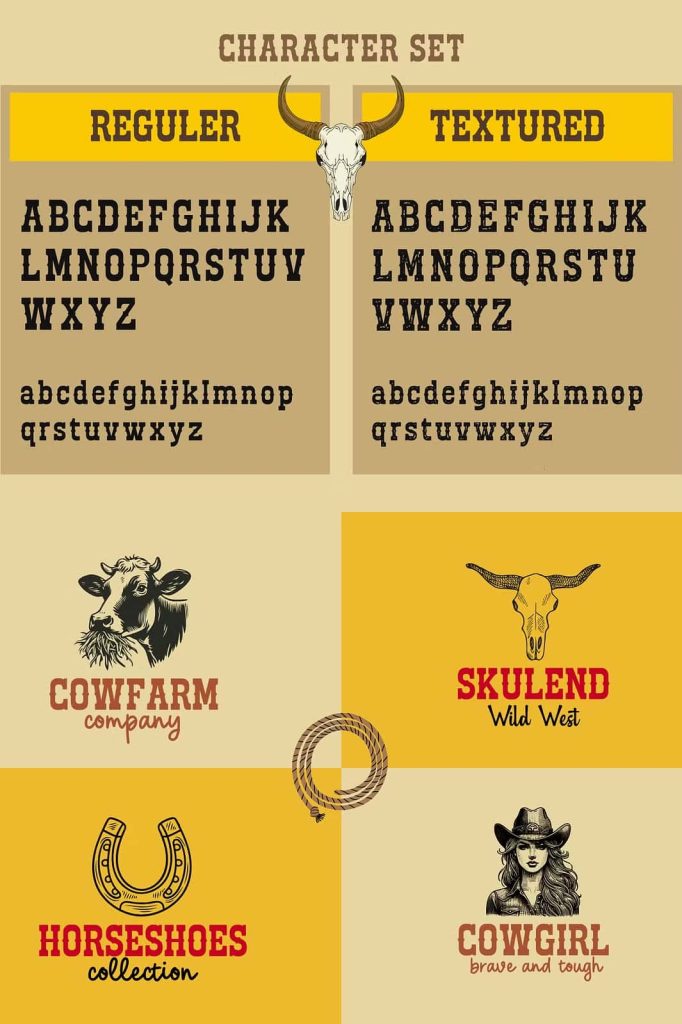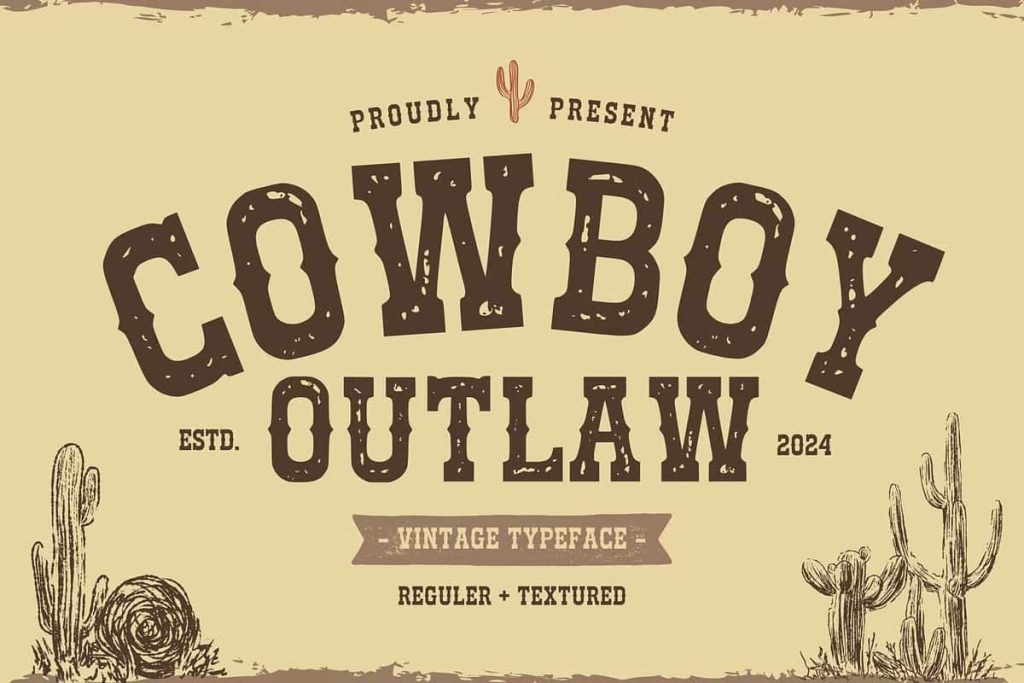
Cowboy Outlaw Retro Cowboy Font
Cowboy Outlaw is a bold retro cowboy font inspired by the legendary spirit of the American Wild West. Designed to capture the rugged charm of frontier towns, vintage saloons, and classic Western typography, this display typeface delivers an authentic rustic appearance that instantly transports your audience to the untamed landscapes of the Old West.
Featuring bold letterforms, vintage styling, and distinctive Western character, Cowboy Outlaw combines nostalgic design with modern usability. Every letter reflects the adventurous energy of cowboys, ranches, horseback trails, and historic Western signage, making it the perfect choice for creative professionals who want typography with personality and timeless appeal.
Whether you are designing rustic branding, Western-inspired packaging, vintage posters, themed event graphics, or bold apparel, Cowboy Outlaw helps create memorable designs that stand out with confidence and authenticity.
Inspired by the Legendary Wild West
Cowboy Outlaw draws inspiration from the golden age of Western culture, where handcrafted signage, frontier businesses, ranch brands, and vintage wanted posters defined the visual identity of the American frontier. The font embraces the rugged beauty of that era while refining every character for today’s professional design standards.
Its bold construction, vintage proportions, and rustic details create typography that feels both nostalgic and contemporary. Rather than simply imitating historical lettering, Cowboy Outlaw modernizes classic Western typography to ensure excellent readability and exceptional versatility across a wide range of creative projects.
Bold Letterforms with Rustic Personality
Every character in Cowboy Outlaw has been carefully crafted to deliver maximum visual impact. Thick strokes, strong proportions, and vintage-inspired details give the typeface a commanding presence that naturally attracts attention.
The rugged styling adds authenticity without sacrificing clarity, allowing designers to create bold headlines, memorable logos, and expressive display typography. Its confident appearance communicates strength, adventure, and timeless craftsmanship across both print and digital media.
Create Authentic Western Branding
Typography plays a major role in building memorable brands, and Cowboy Outlaw offers everything needed to create authentic Western-inspired identities. Its rustic charm instantly communicates heritage, adventure, craftsmanship, and outdoor culture while maintaining a professional visual appearance.
The font works exceptionally well for businesses that embrace country lifestyles, handmade products, ranch traditions, outdoor adventures, or vintage aesthetics.
Recommended Branding Applications
- Western logos
- Ranch branding
- Country clothing brands
- Craft beverage labels
- BBQ restaurant identities
- Outdoor product packaging
- Farm branding
- Rustic business identities
- Adventure lifestyle brands
Perfect for Posters and Event Promotions
Cowboy Outlaw was designed to make large display typography bold and unforgettable. Posters, event banners, concert promotions, rodeo advertisements, country music festivals, Western fairs, and themed celebrations all benefit from its distinctive character and vintage personality.
The font immediately establishes the atmosphere of the American frontier, making promotional materials more engaging while reinforcing strong visual storytelling.
Ideal for Packaging and Merchandise
Rustic packaging demands typography that reflects authenticity and craftsmanship. Cowboy Outlaw enhances product labels, food packaging, beverage branding, leather goods, artisan products, camping equipment, and outdoor merchandise with a timeless Western identity.
Its bold appearance also makes it an outstanding choice for apparel graphics, hats, T-shirts, mugs, stickers, and promotional merchandise inspired by country living and frontier traditions.
Bring the Spirit of Adventure to Every Design
The Wild West has always symbolized freedom, courage, exploration, and independence. Cowboy Outlaw captures those values through expressive typography that tells a story before a single word is read.
Whether you are creating fictional Western artwork, historical publications, game graphics, movie posters, or themed marketing campaigns, the font helps communicate adventure and authenticity with remarkable visual impact.
Versatile Across Creative Projects
Although deeply inspired by vintage Western typography, Cowboy Outlaw adapts beautifully to many different creative disciplines. Designers can easily incorporate the font into both traditional rustic projects and modern retro-inspired branding with consistent professional results.
Perfect For
- Western logos
- Brand identities
- Vintage posters
- Rodeo promotions
- Country music events
Cowboy Outlaw Retro Cowboy Font is a bold and expressive Western display typeface that captures the adventurous spirit of the American frontier. Featuring vintage-inspired letterforms, rustic charm, and outstanding versatility, it is perfectly suited for branding, logos, posters, packaging, apparel, signage, themed events, advertising, and creative display typography. Whether you are designing for a ranch, a country music festival, a rustic brand, or a Wild West-inspired campaign, Cowboy Outlaw brings authentic frontier character and lasting visual impact to every project.